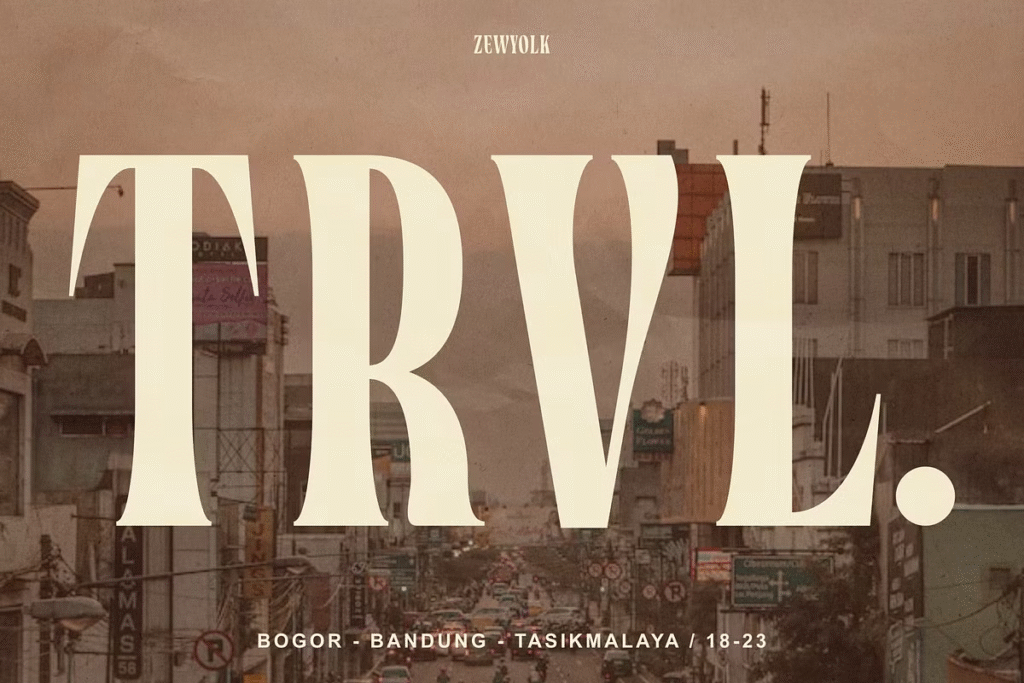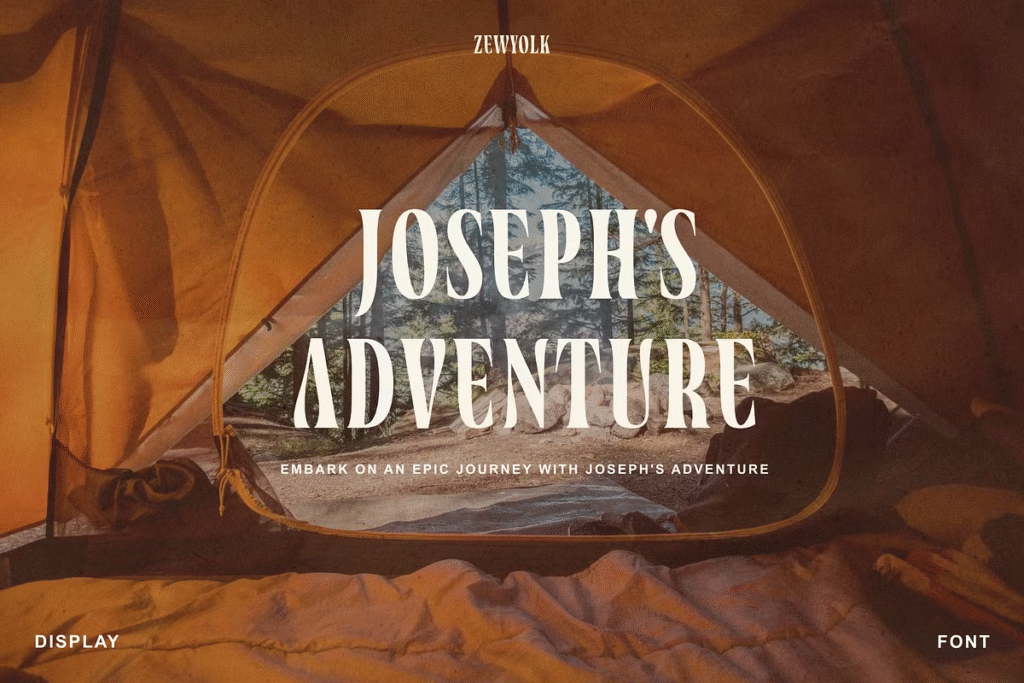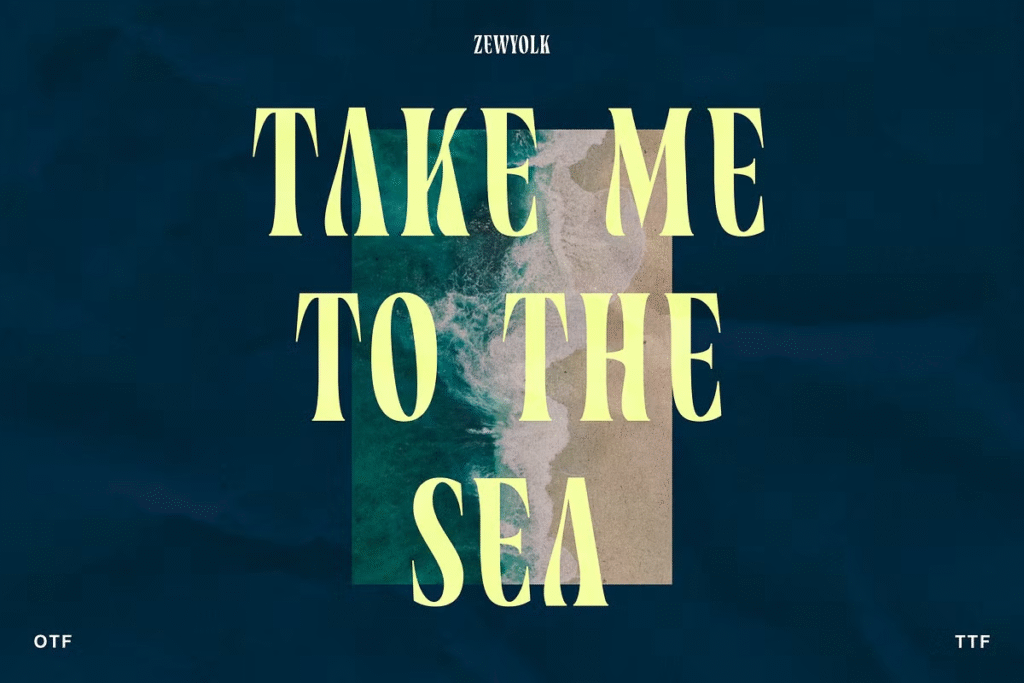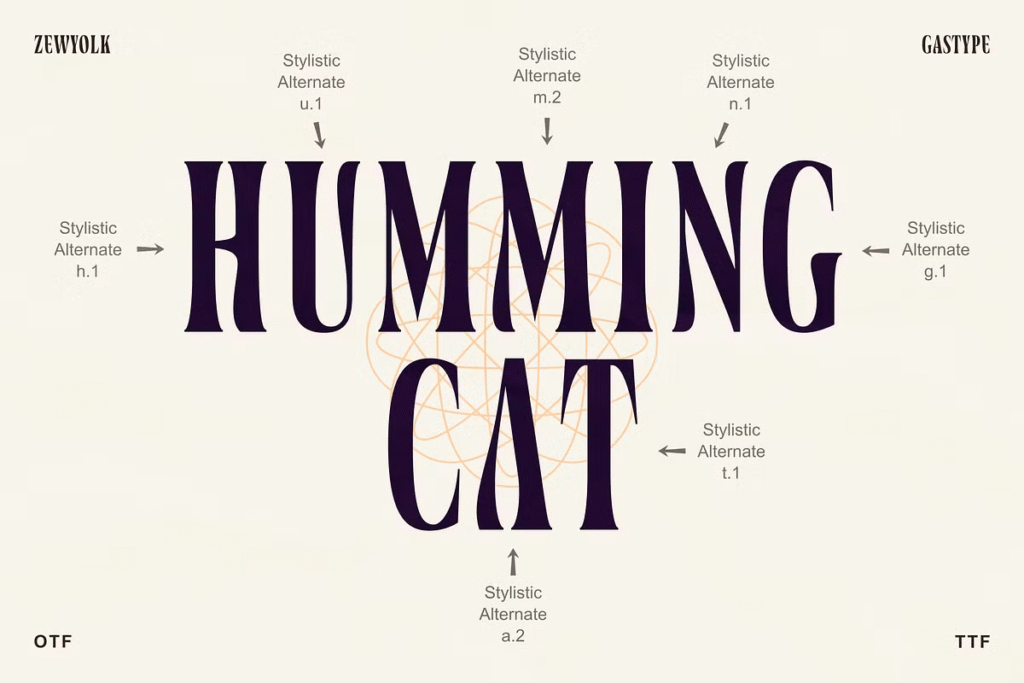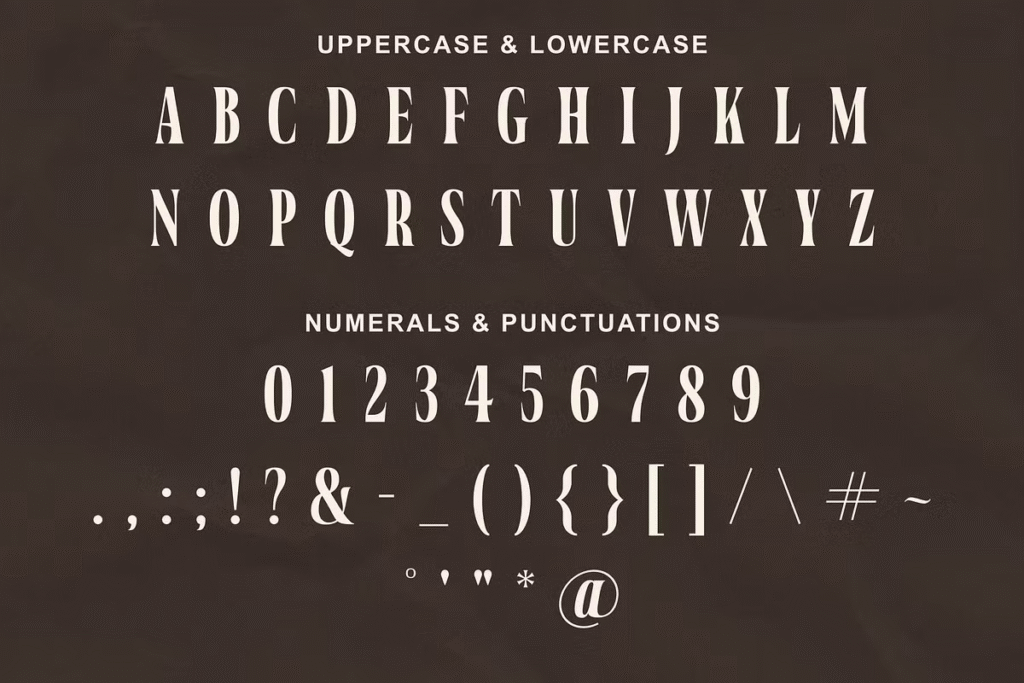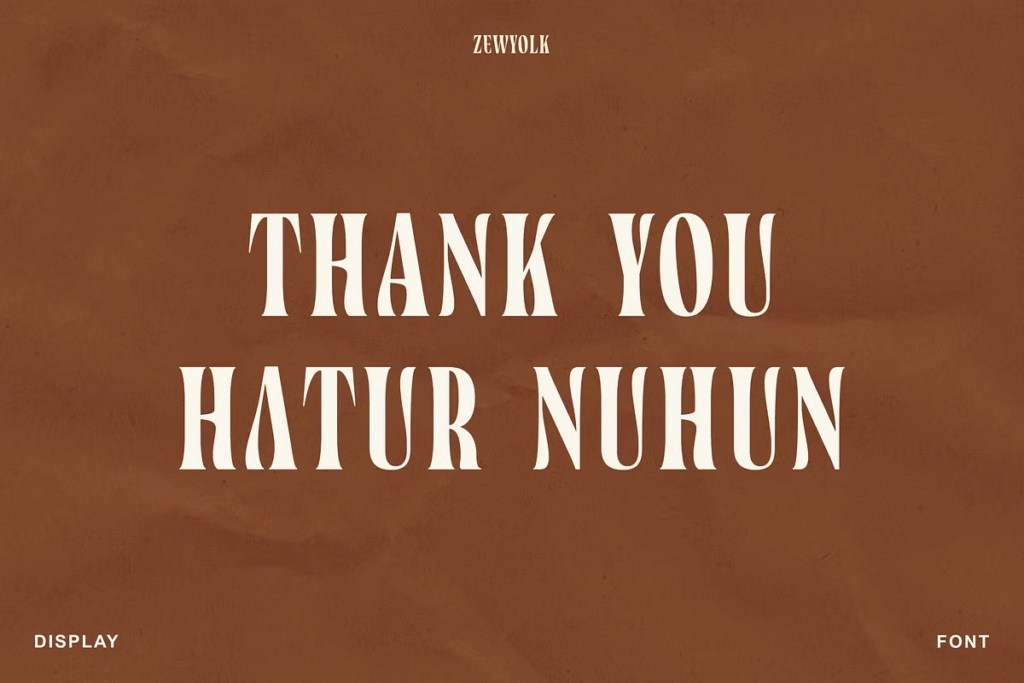
Zewyolk Font
Zewyolk is a refined condensed display font with a tall, narrow style. Perfect for sleek logos, headlines, and modern branding projects, it brings sophistication and impact to any design.